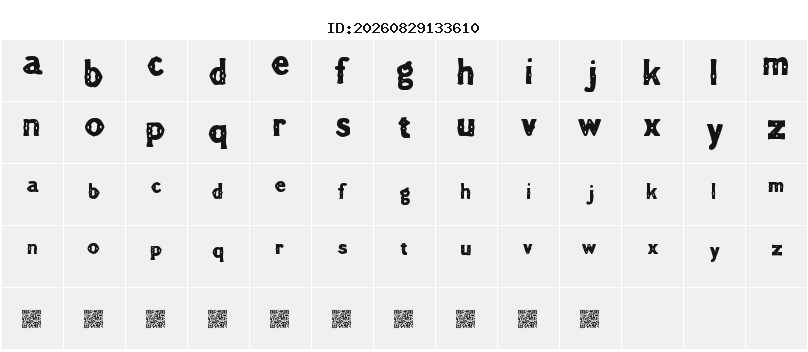
TheaterEvent Preview
• Font Name: TheaterEvent
• Font ID: TheaterEvent:Version 1.00
• Full Font Name: TheaterEvent
• Version: Version 1.00 April 3, 2013, initial release
• PostScript Name: TheaterEvent
• Character Count: 58
• Designer: Xerographer Fonts Max Infeld
• Manufacturer: Xerographer Fonts
• Description: Made at Xerographer Studios in Chico,CA
About TheaterEvent.ttf
TheaterEvent.ttf is a modern, elegant sans-serif font designed for ultimate readability and visual harmony. Perfect for branding, headlines, web design, and print materials.